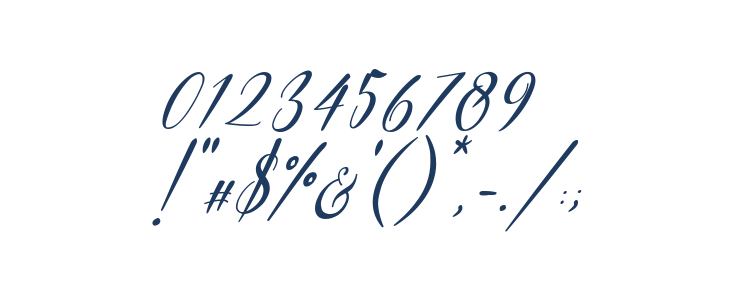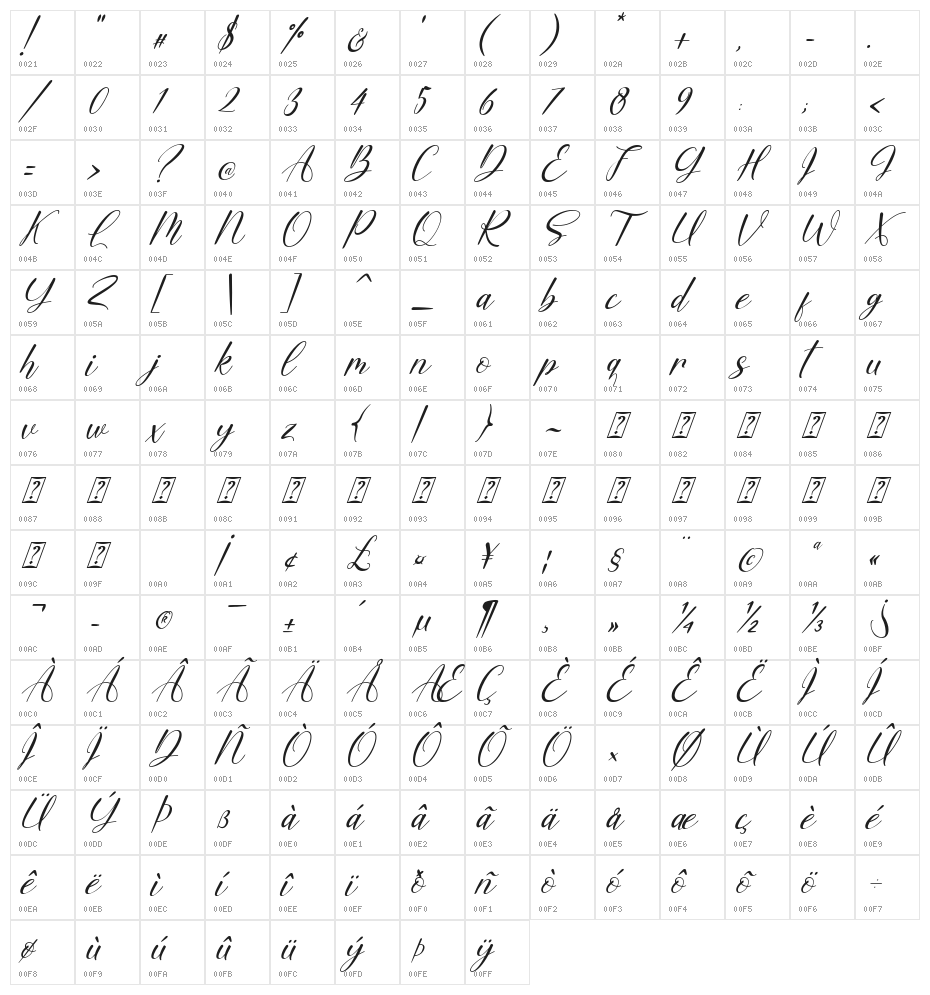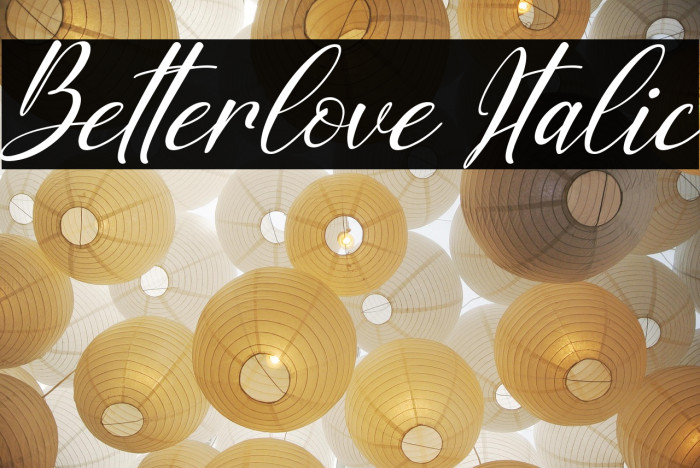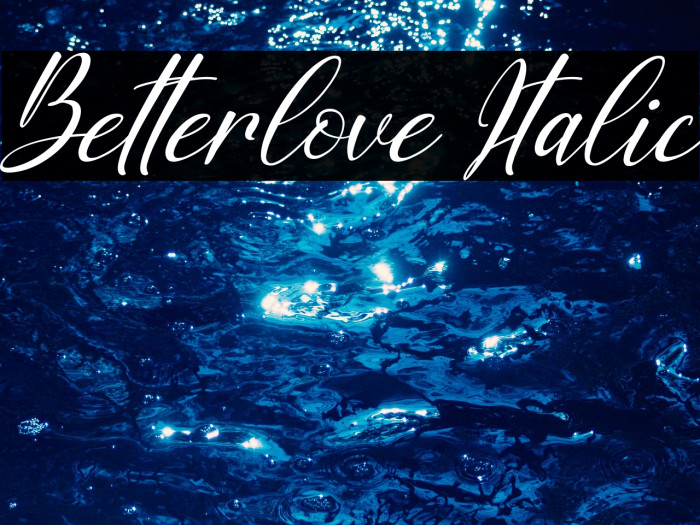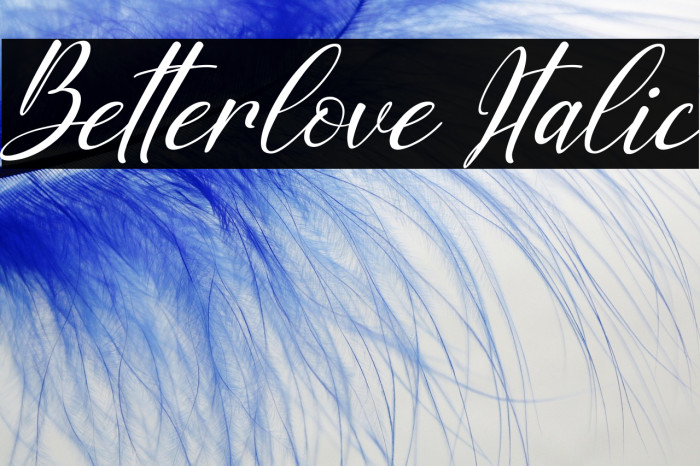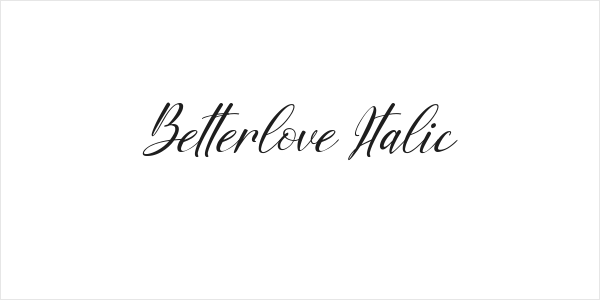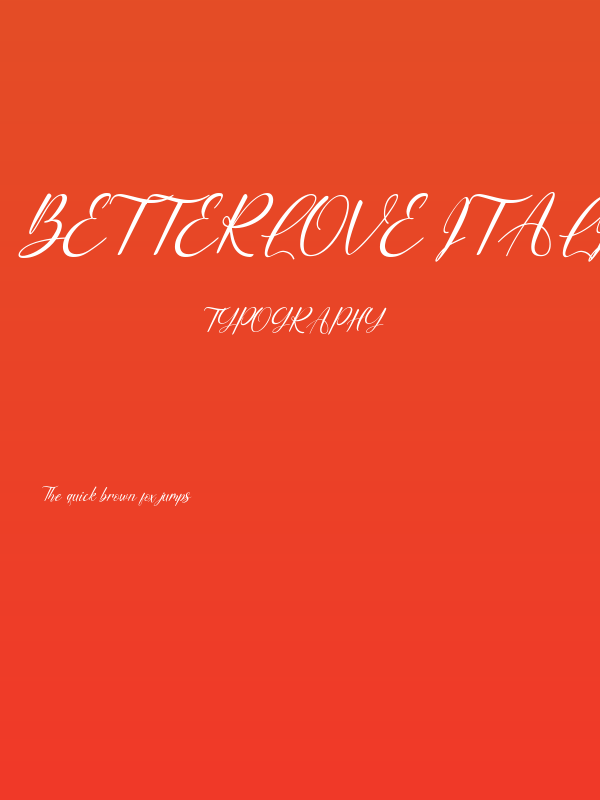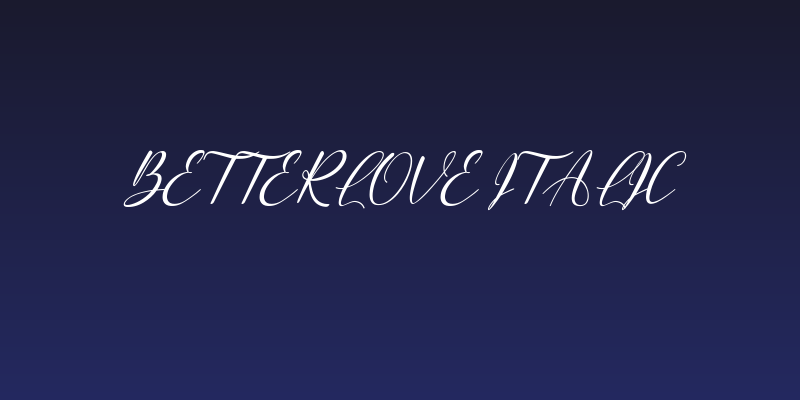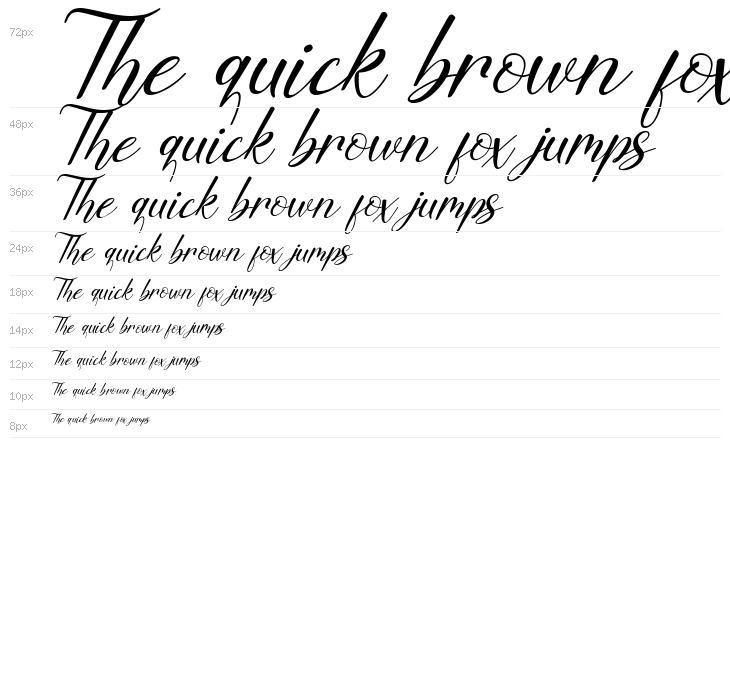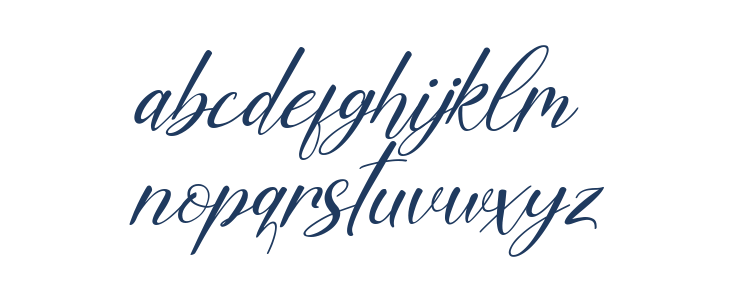
Betterlove Italic Font
Betterlove Italic Description
This elegant script font features fluid, cursive strokes that convey a sense of sophistication and grace. The letters are interconnected, creating a seamless flow that enhances its handwritten appearance. The uppercase letters are tall and slender, with graceful loops and swirls, while the lowercase letters maintain a consistent rhythm with gentle curves. The numerals are stylish and complement the overall aesthetic. Special characters are thoughtfully designed, adding to the font's versatility. The font's italic nature enhances its dynamic and expressive quality, making it suitable for creative and artistic projects.
| Overall Style | Elegant, Artistic |
| Proposed Projects | Ideal for wedding invitations, elegant branding, personal signatures, and artistic projects. |